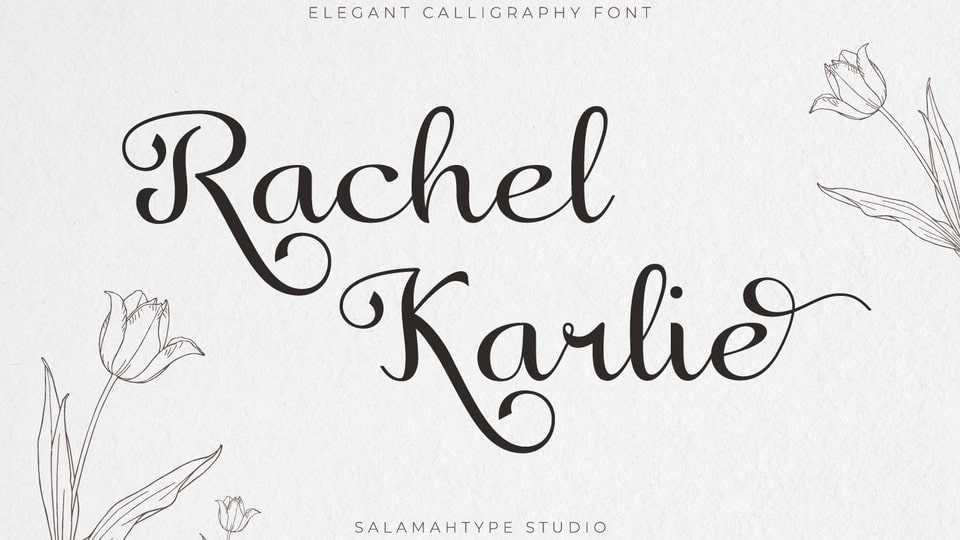
Download Rachel Karlie font, an elegant calligraphy typeface. Rachel Karlie font is perfect for branding projects, logo, wedding designs, product packaging, product designs, label, invitation, social media, advertisements, merchandise and more!